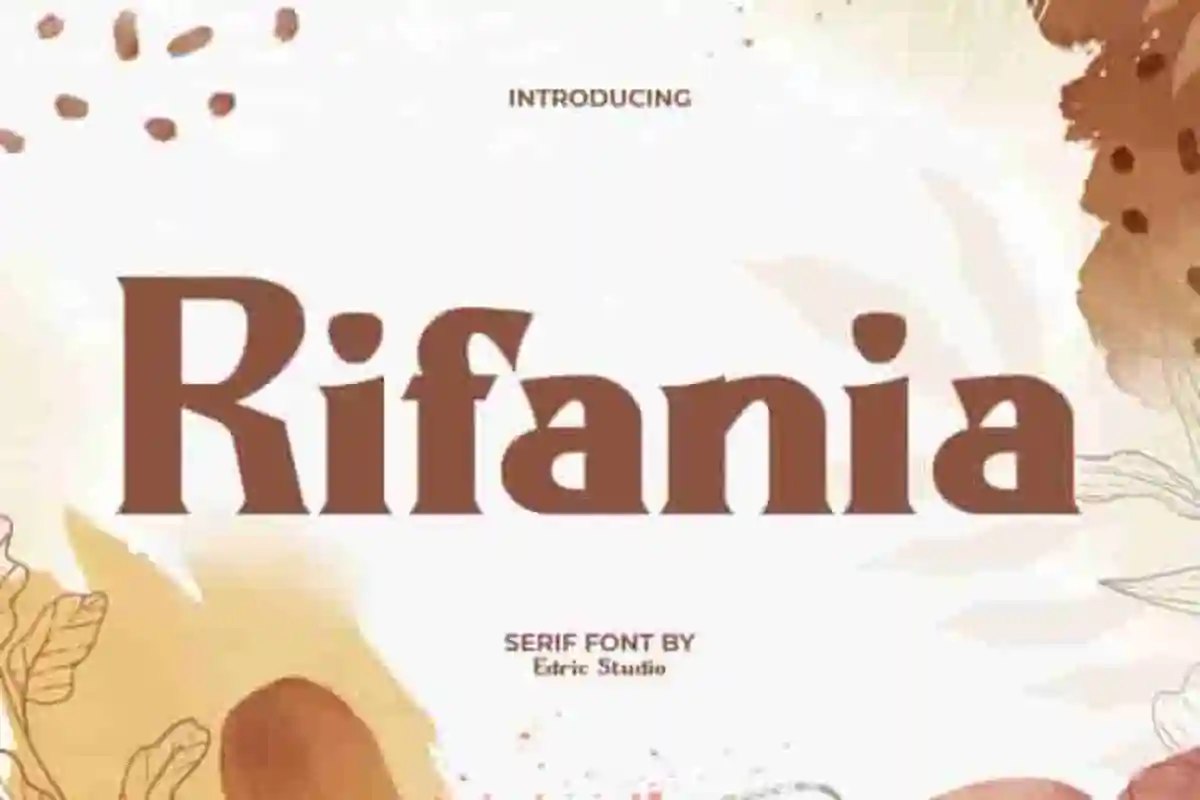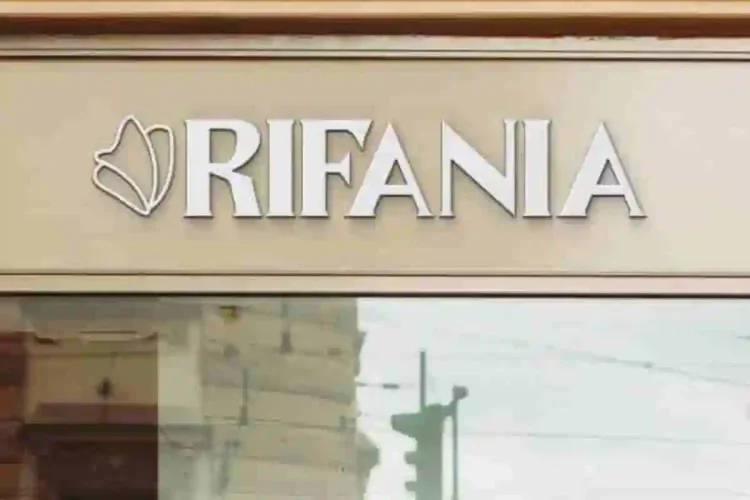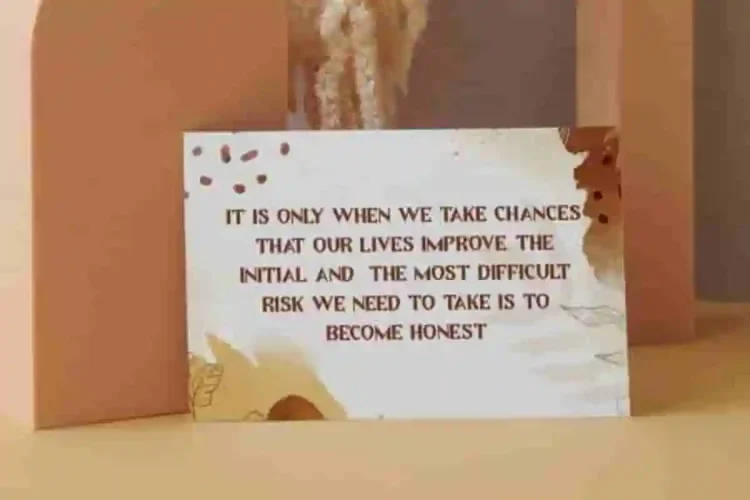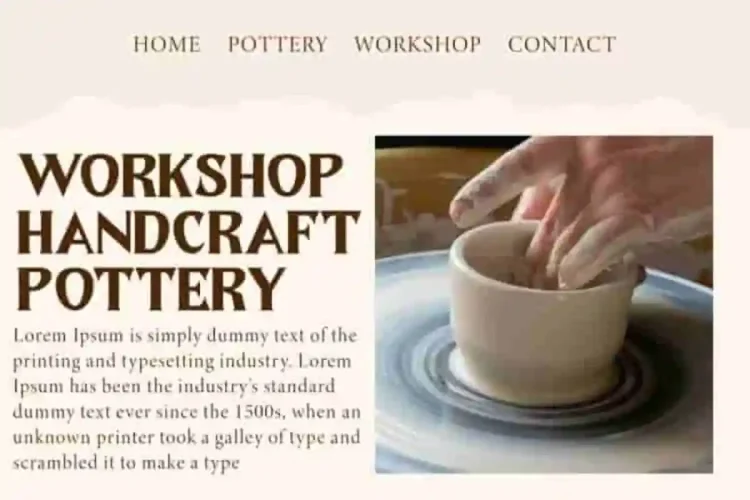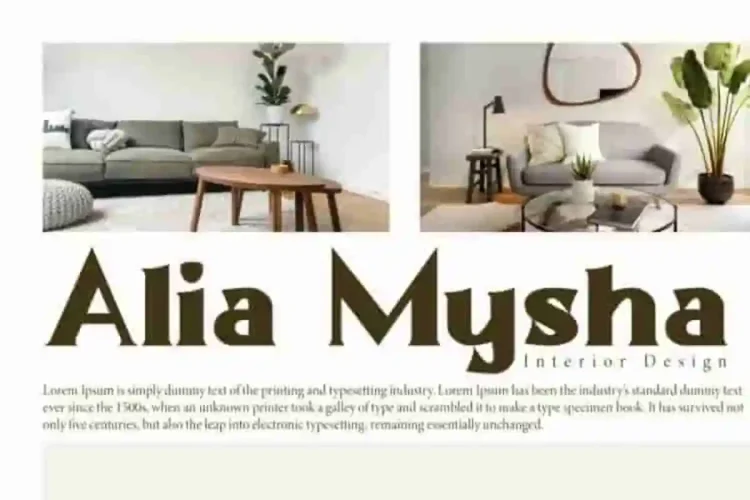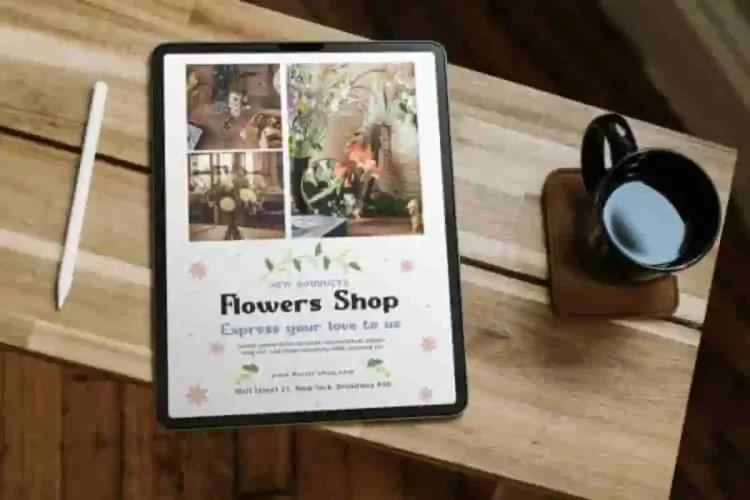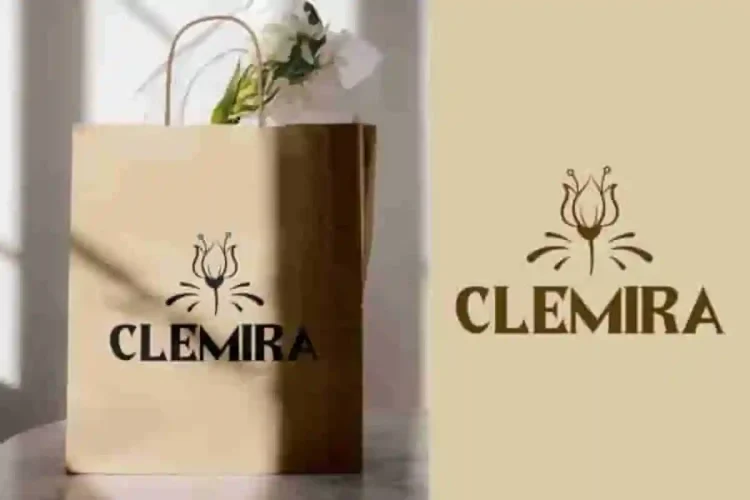
Rifania Modern Retro Font
Rifania Font is a unique and stylish serif typeface with an elegant retro modern touch. It ensures flexibility for every project and delivers stunning and professional design results. Perfect for banners, brand logo, blogs, brochure, card designs, covers, header, heading, headline, invitation, mockup, packaging, poster, quotes, screen print, signboard, stationery, template, title, website, and much more.
Rifania Modern Retro Font comes with a complete set of Uppercase and Lowercase Letters, Number, Punctuation, and Symbols. Perfect for accessories and gifts, florist, graphic designer, handicraft, home furniture, interior design, photography, pottery, spa salon, and much more.
Rifania Font a playful typeface with unique decoration in each character. Combine different characters for a bespoke, handcrafted feel. It’s tested to work well in the Adobe Apps (Illustrator, Adobe InDesign, Adobe Photoshop) even work on Microsoft Word. All of these characters are available through the glyph panel, moreover each letter has its own unicode (PUA) so you can access all the characters easily.